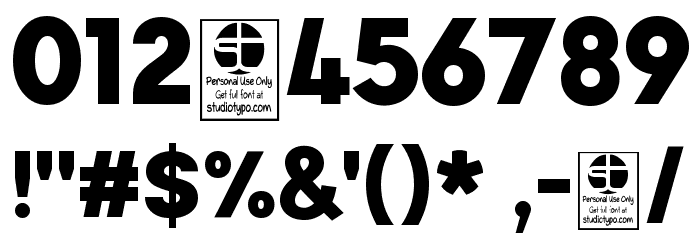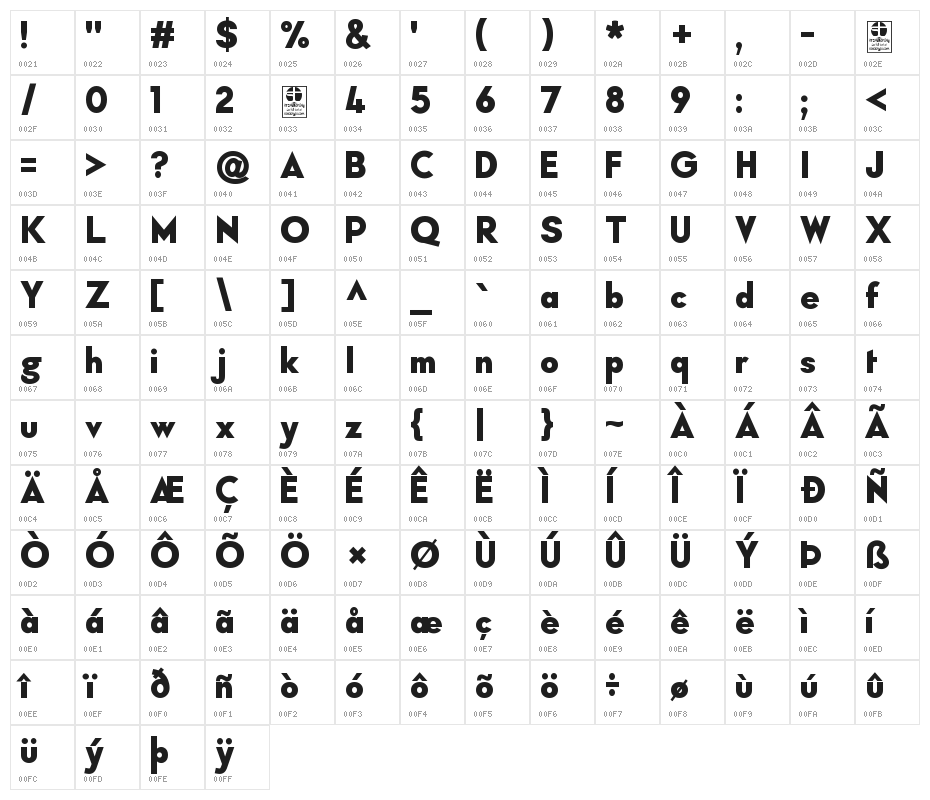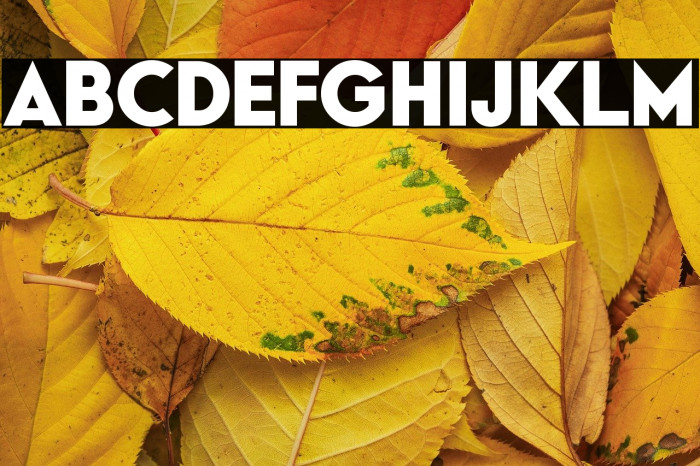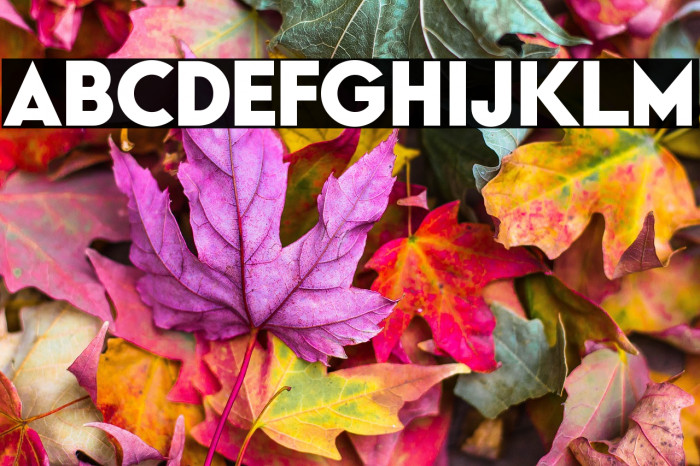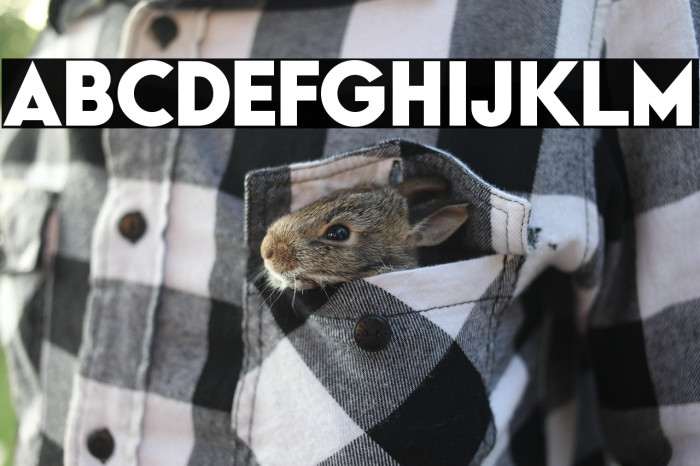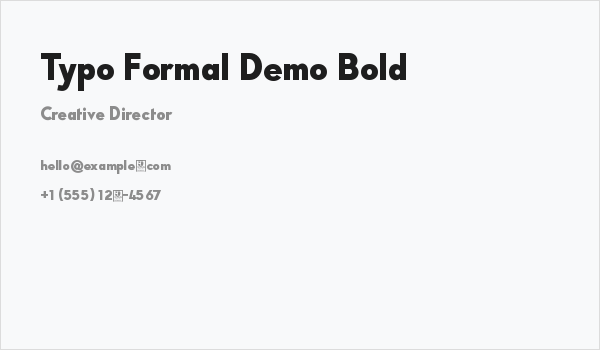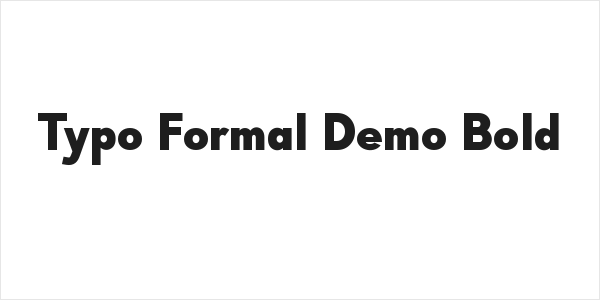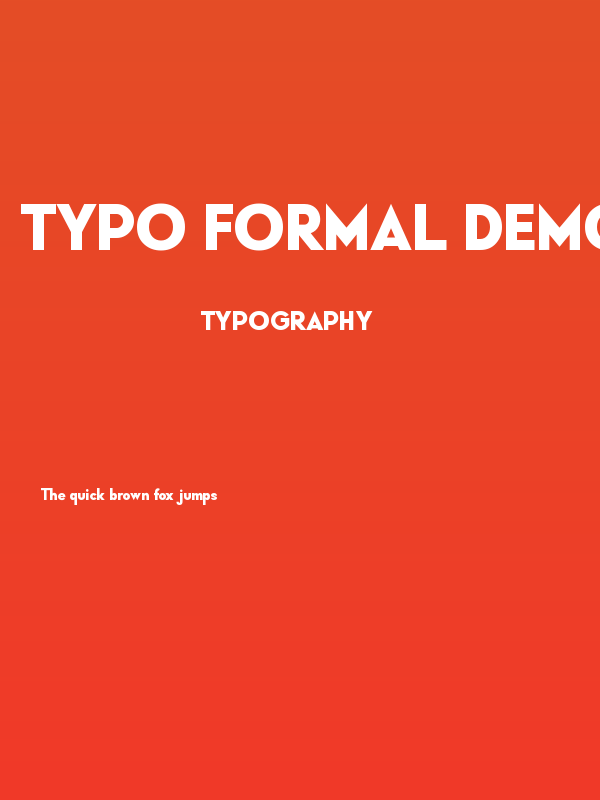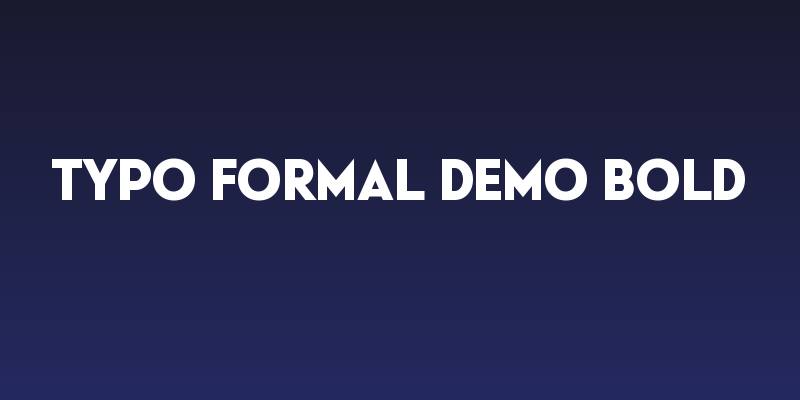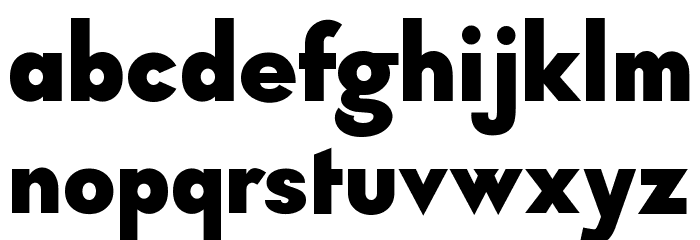
Typo Formal Demo Bold Font
Typo Formal Demo Bold Description
This font features a bold and assertive style, characterized by thick, uniform strokes that convey strength and clarity. The uppercase letters are particularly striking, with a geometric precision that enhances readability. The lowercase letters maintain a consistent weight, ensuring a harmonious appearance across different text sizes. Numbers and special characters are designed with the same boldness, making them stand out effectively. The overall design is modern and clean, suitable for a variety of applications where impact and legibility are essential.
| Proposed Projects | Ideal for branding, headlines, posters, and any project requiring a strong visual impact. |